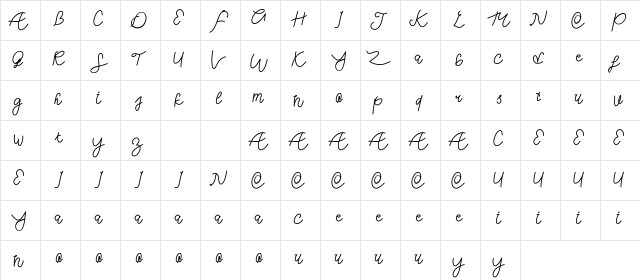
Chill Friend Demo Regular
| Foundry | Edric Studio |
| Designer | Yasri Ainun N& Sarah Suci P |
Design Context for Chill Friend Demo Typeface
Chill Friend Demo is a composed and adaptable typeface that performs quietly and consistently across a wide range of design contexts.